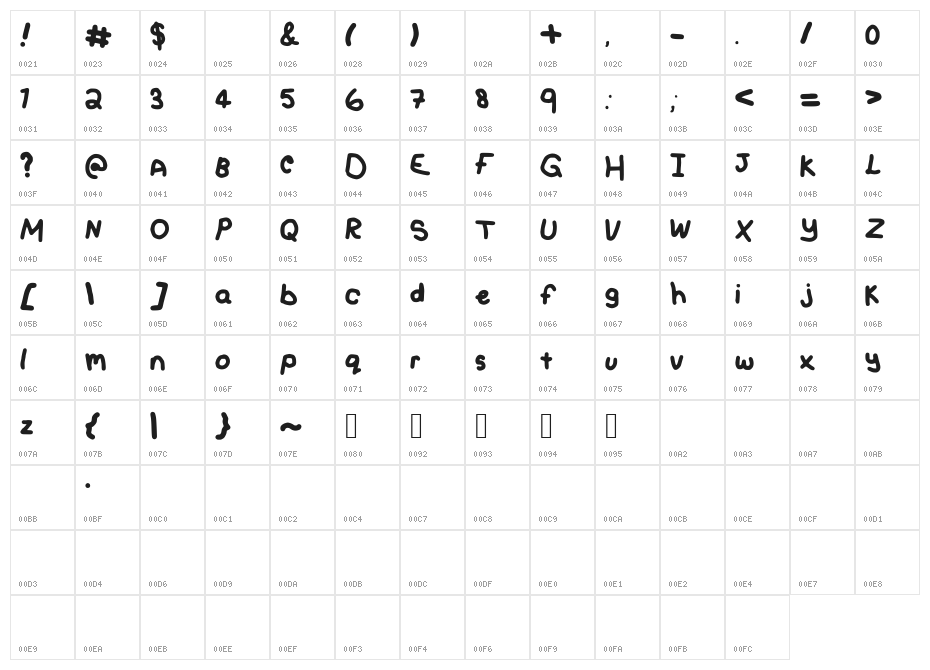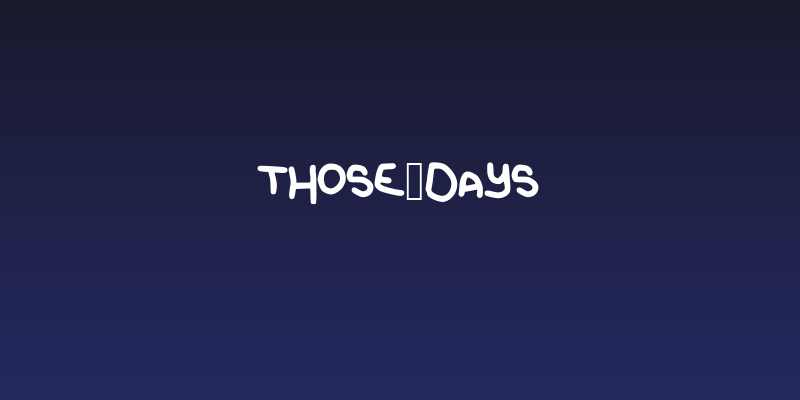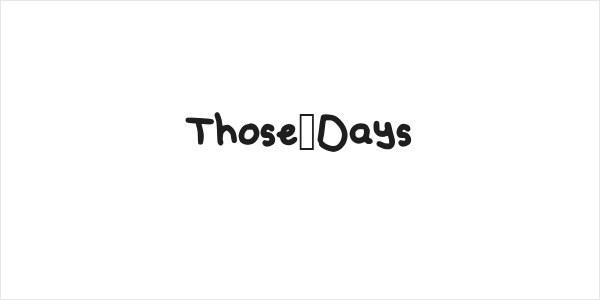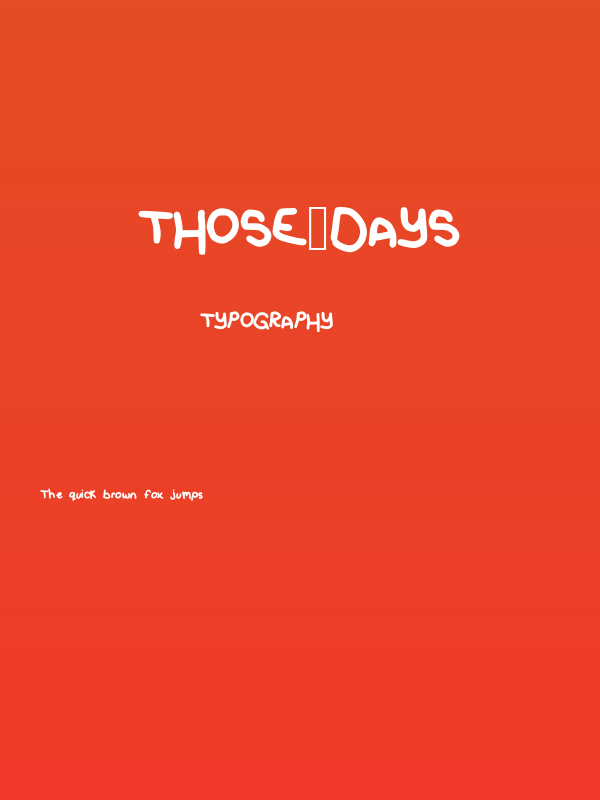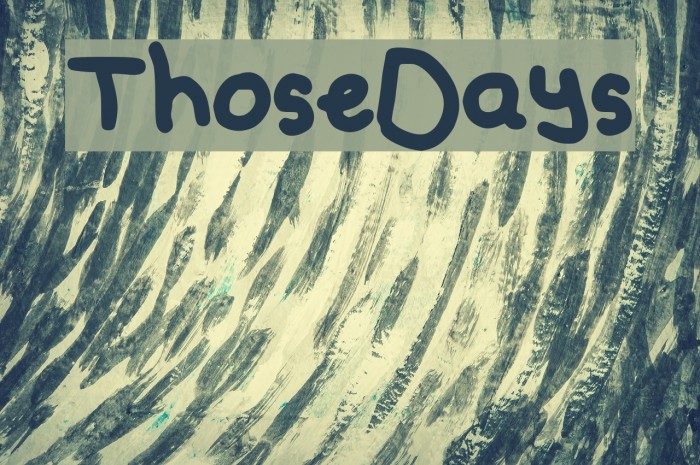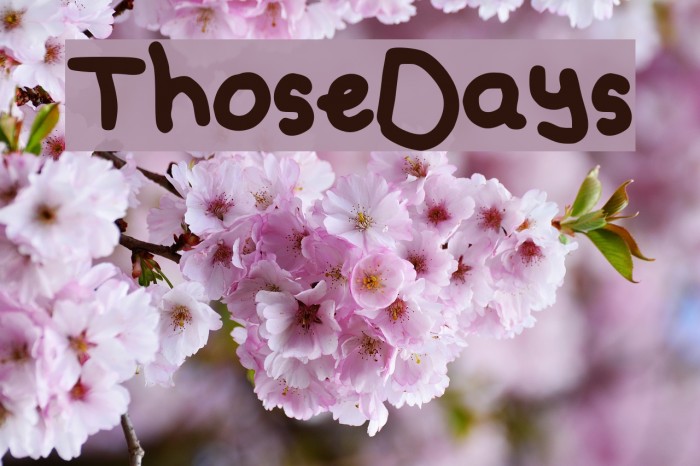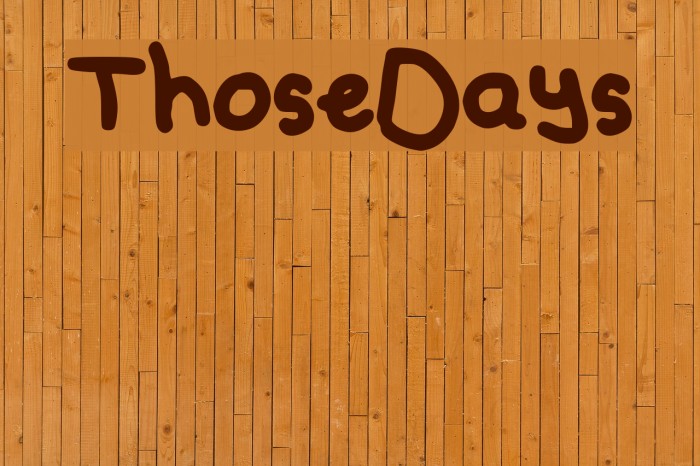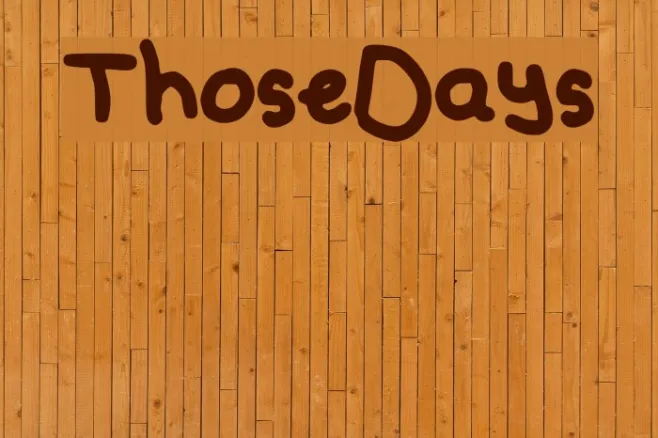
Those_Days Font
Those_Days Description
This playful and informal font features a handwritten style with bold, rounded characters. Each letter has a unique, slightly irregular shape, giving it a casual and friendly appearance. The strokes are thick and consistent, contributing to its bold presence. The font maintains a uniform baseline, but the varying heights and widths of the characters add to its whimsical charm. The numbers and special characters are equally bold and maintain the same playful style, making it suitable for creative and informal projects.
| Proposed Projects | Ideal for children's books, comic strips, playful branding, and casual invitations. |